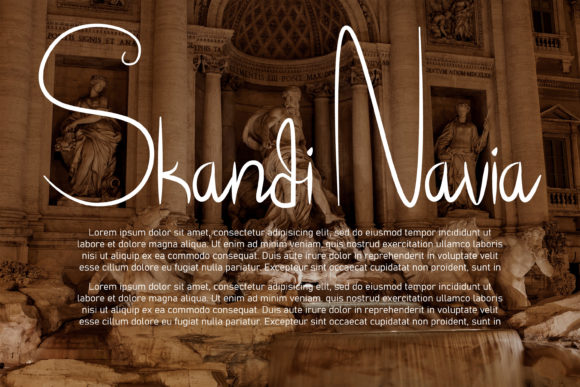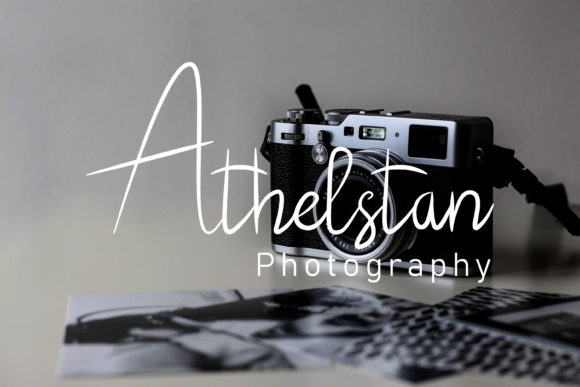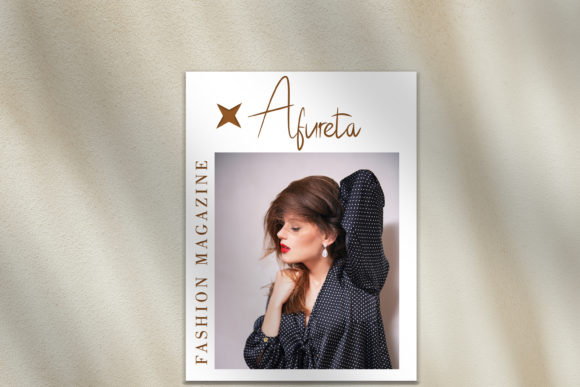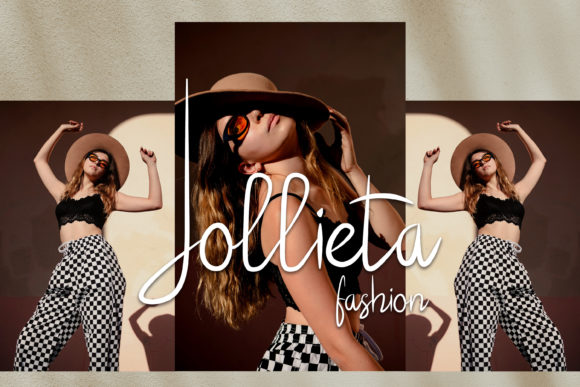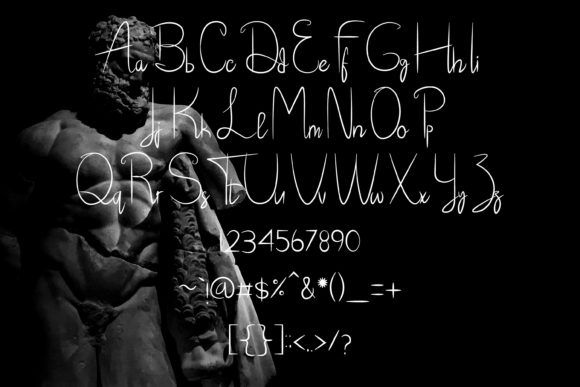
Aqiente Font: Elevate Your Designs with Delicate Elegance
In the world of typography, fonts play a crucial role in conveying the tone and personality of a design. For designers and crafters seeking a touch of elegance and sophistication, Aqiente font is an excellent choice. This delicate script font boasts unique strokes that can instantly elevate your logo branding, product designs, quotes, posters, and various other creative projects.
The Beauty of Aqiente Font
Aqiente font is a beautiful, handcrafted script font that exudes a sense of refinement and luxury. Its delicate strokes and intricate details make it perfect for designs that require a touch of sophistication. The font’s unique characteristics include:
- Delicate and elegant strokes
- Unique and intricate details
- Perfect for logo branding, product designs, and quotes
- Suitable for posters, display, website, invitation card, and calligraphy projects
Uses of Aqiente Font
Aqiente font is versatile and can be used in a variety of design projects, including:
- Logo Branding: Create a lasting impression with Aqiente font by incorporating it into your logo design. Its elegant strokes and unique details make it perfect for luxury brands, fashion labels, and high-end businesses.
- Product Designs: Add a touch of sophistication to your product designs with Aqiente font. Use it for product labels, packaging, and marketing materials to create a cohesive and luxurious look.
- Quotes and Posters: Aqiente font is ideal for creating inspirational quotes, posters, and flyers. Its delicate strokes and elegant details make it perfect for conveying meaningful messages.
- Website and Digital Designs: Use Aqiente font to create stunning website headers, titles, and captions. Its unique characteristics will add a touch of elegance to your digital designs.
- Invitation Cards and Calligraphy: Aqiente font is perfect for creating beautiful invitation cards, calligraphy art, and other handwritten designs. Its delicate strokes and intricate details make it ideal for special occasions and events.
Why Choose Aqiente Font?
Aqiente font offers several benefits that make it an excellent choice for designers and crafters:
- Unique and Exclusive: Aqiente font is a one-of-a-kind font that will set your designs apart from others.
- Elegant and Sophisticated: Its delicate strokes and intricate details make it perfect for luxury brands, high-end businesses, and sophisticated designs.
- Versatile: Aqiente font can be used in a variety of design projects, from logo branding to digital designs.
- Easy to Read: Despite its delicate nature, Aqiente font is easy to read and understand, making it perfect for body text and captions.
Tips for Using Aqiente Font
To get the most out of Aqiente font, follow these tips:
- Use it sparingly: Aqiente font is best used in moderation. Use it for headings, titles, and captions to create visual interest.
- Pair it with other fonts: Combine Aqiente font with other fonts to create a unique and visually appealing design.
- Adjust font size: Experiment with different font sizes to find the perfect balance between elegance and readability.
Aqiente font is a stunning script font that can elevate your designs with its delicate elegance. Its unique strokes and intricate details make it perfect for a variety of design projects, from logo branding to digital designs. With its versatility, elegance, and sophistication, Aqiente font is an excellent choice for designers and crafters seeking to add a touch of luxury to their creations.